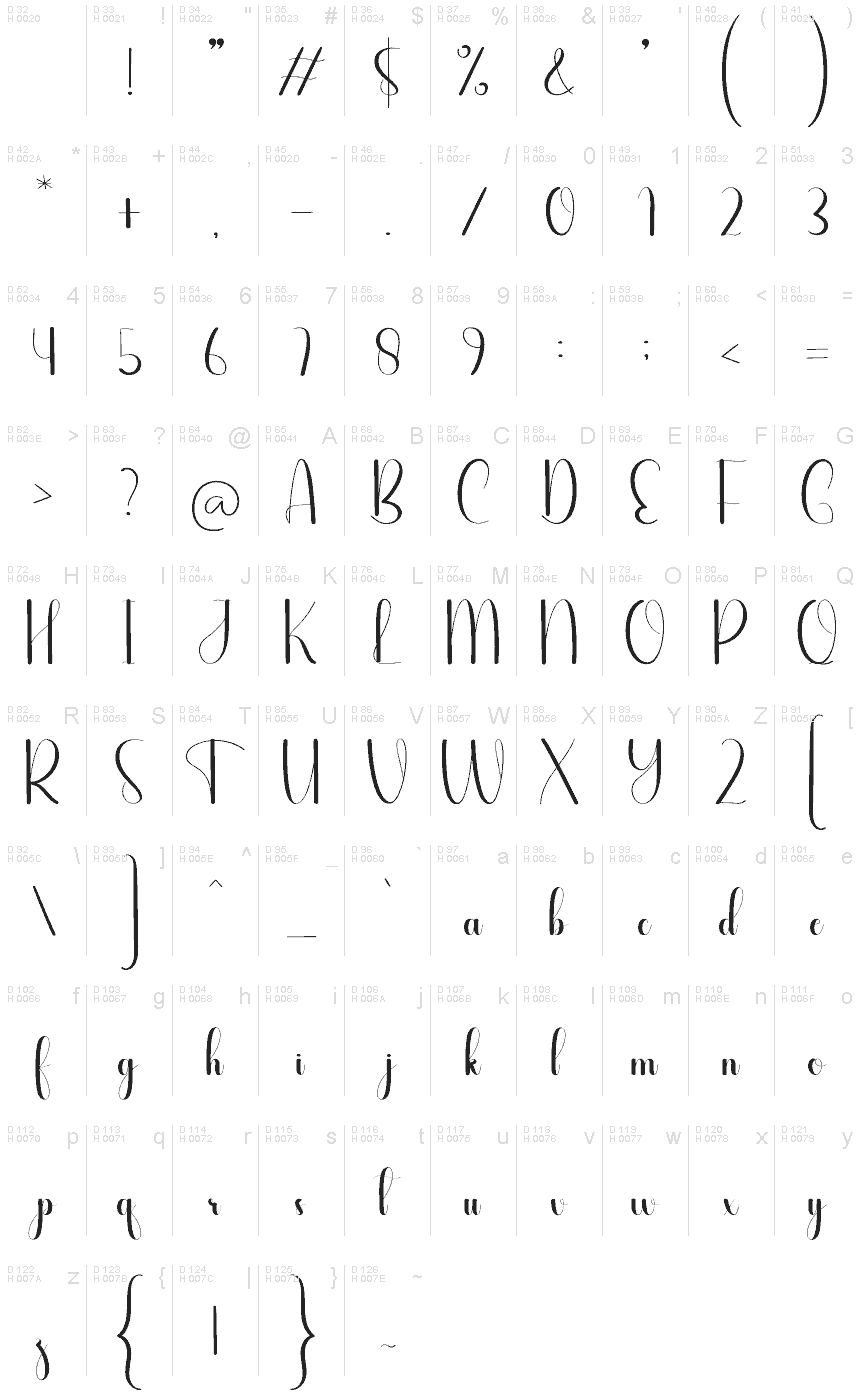
Smileside
Smileside font is a free calligraphy condensed font by Andi Moz. A simple scan through its letter set exposes all the elegance and sophistication you were hoping for in flowing graceful curves. Each letter perfectly balances a sense of modern flair and traditional style which makes them instantly ornamental.
Use this script font for classy packaging, branding ideas, logo designs, posters, cards, book covers, magazines, or stationery. Web design like advertisements or social media posts will look attractive too. Other useful sections to apply it would be presentations and product labels.